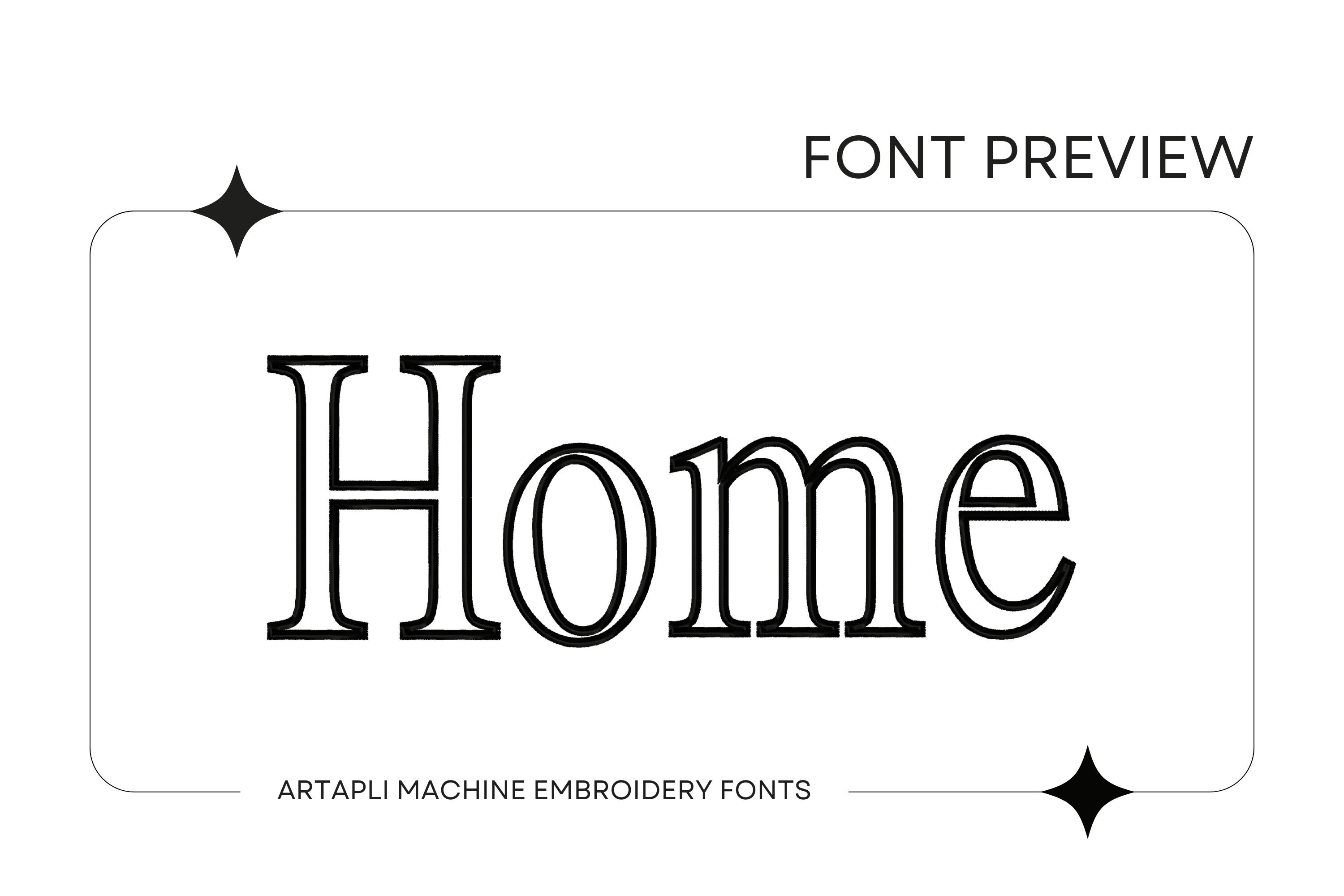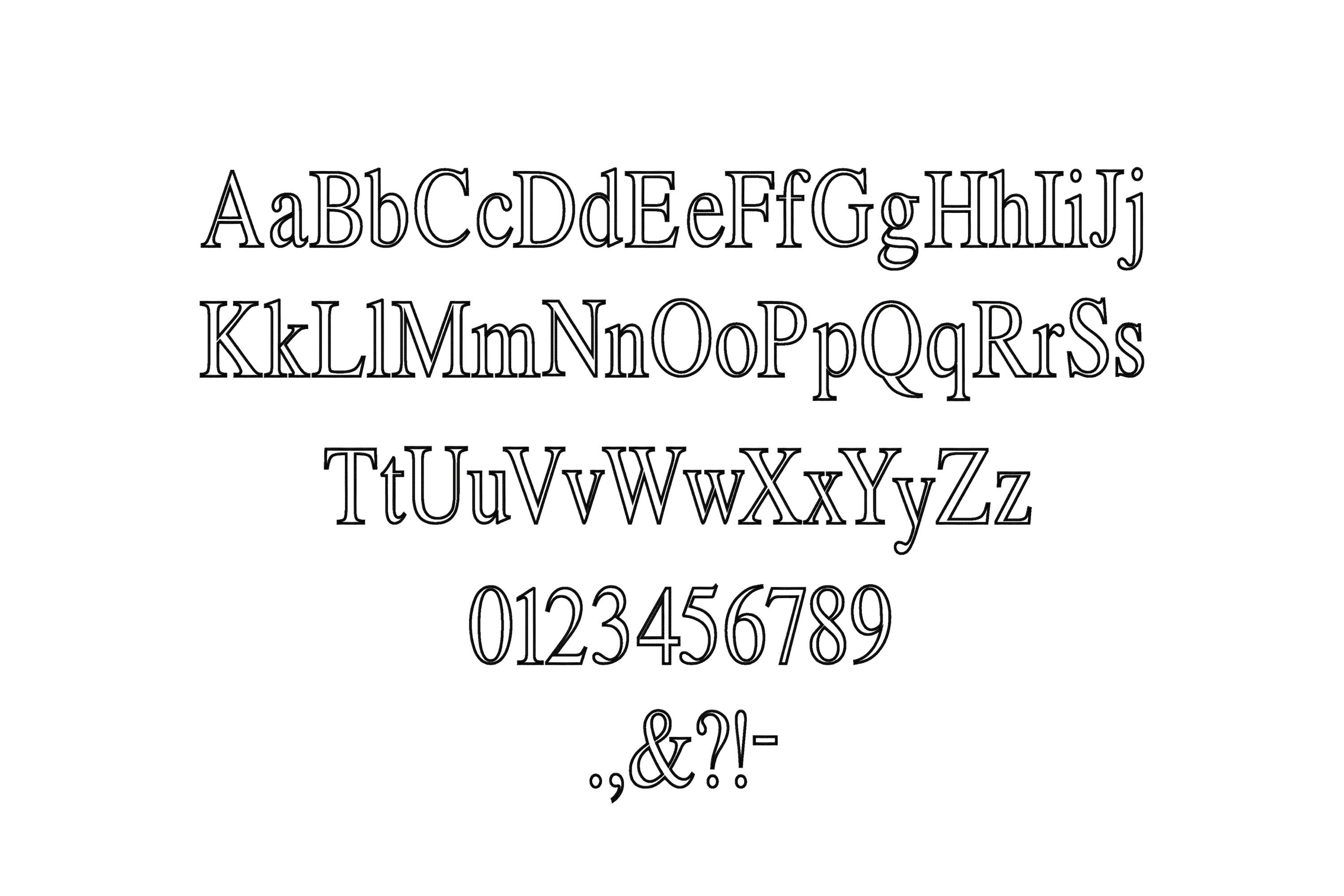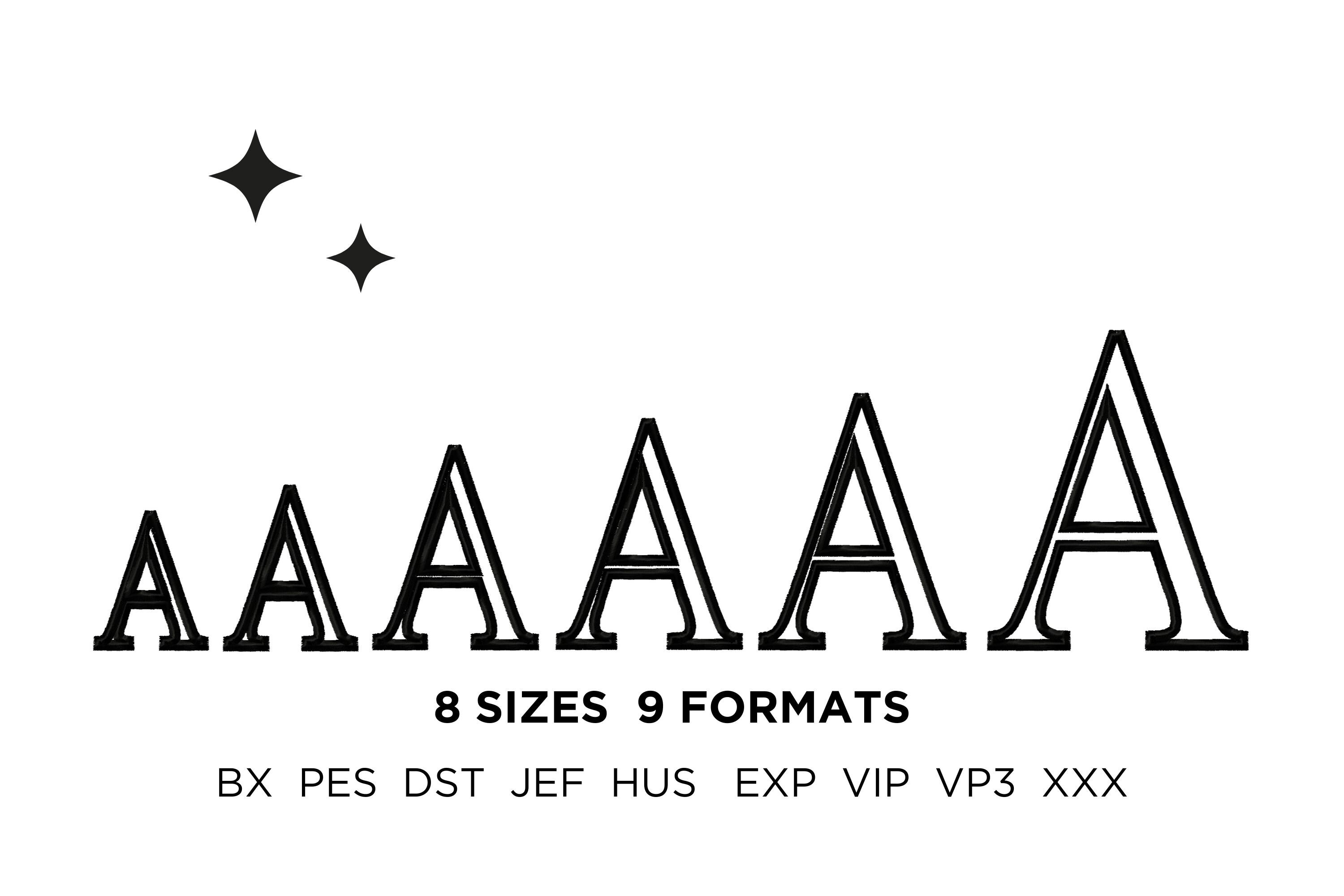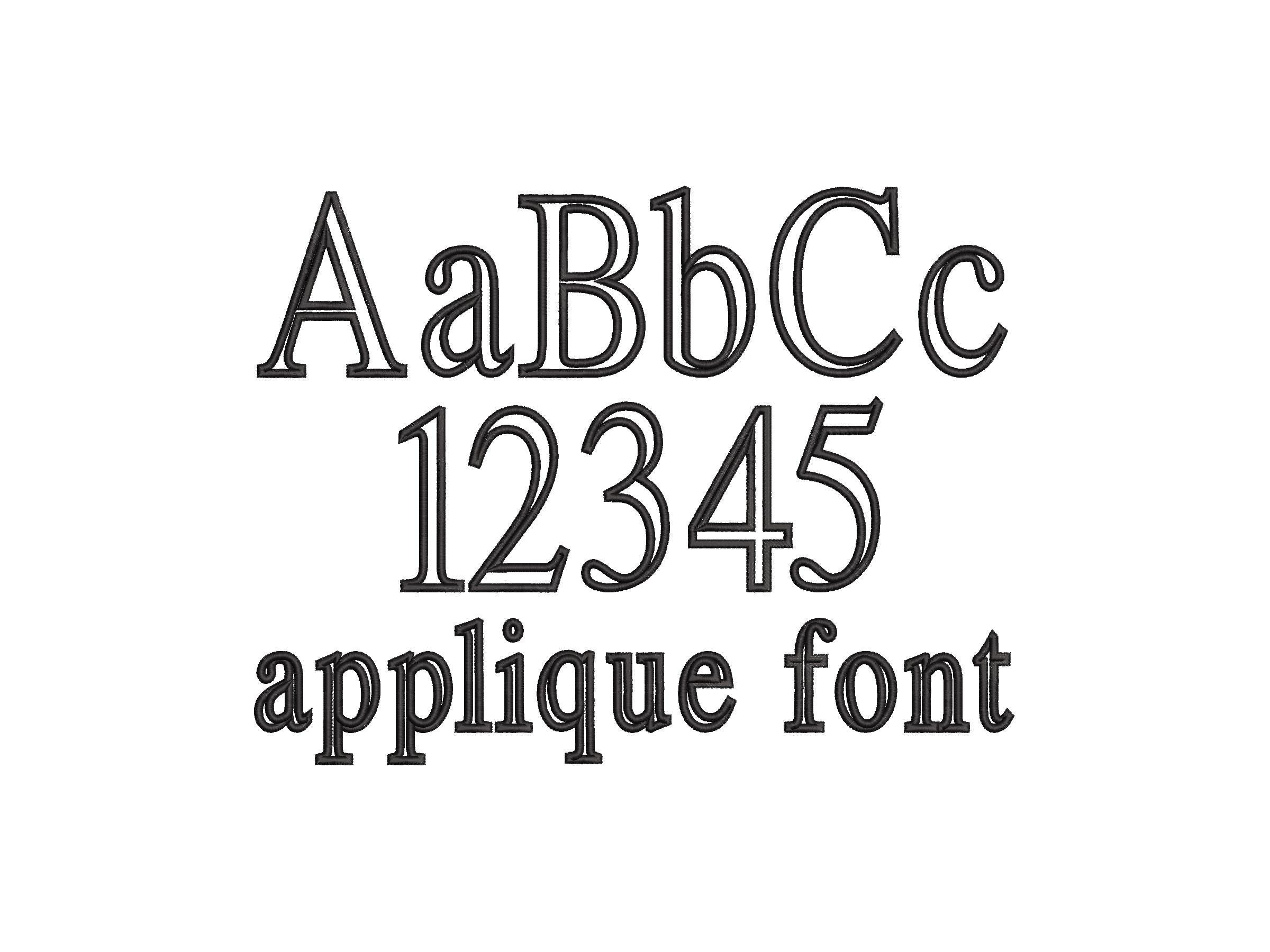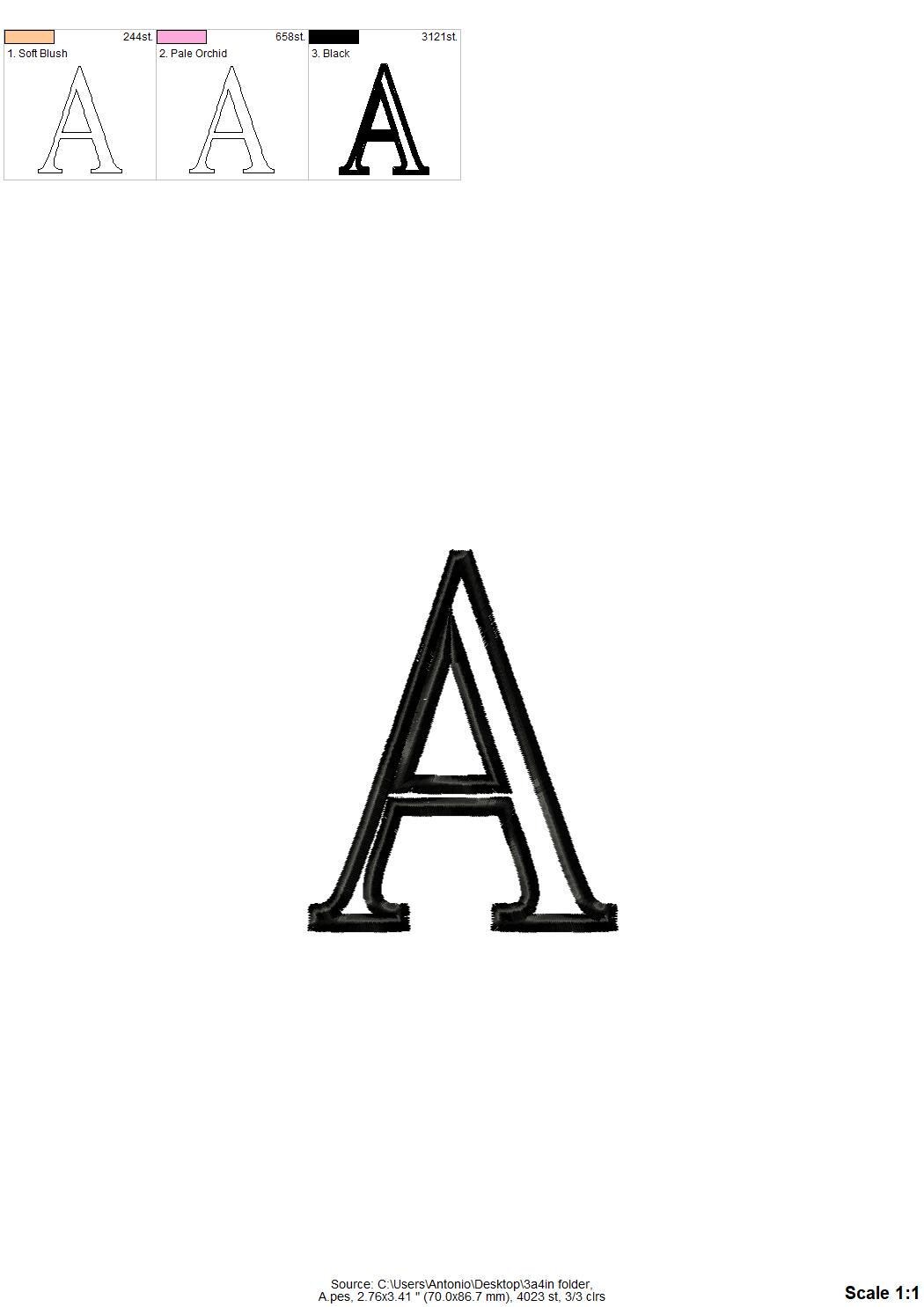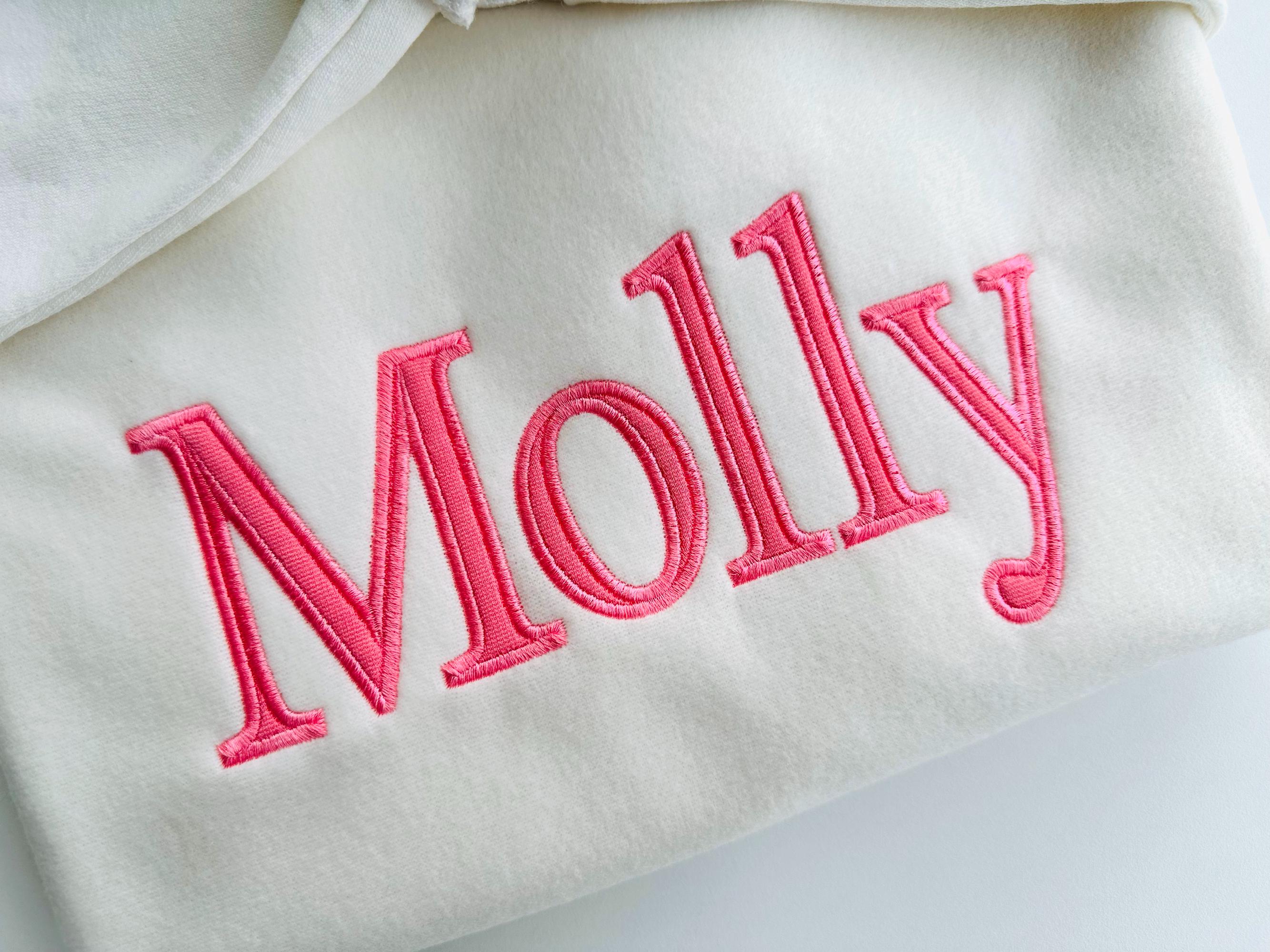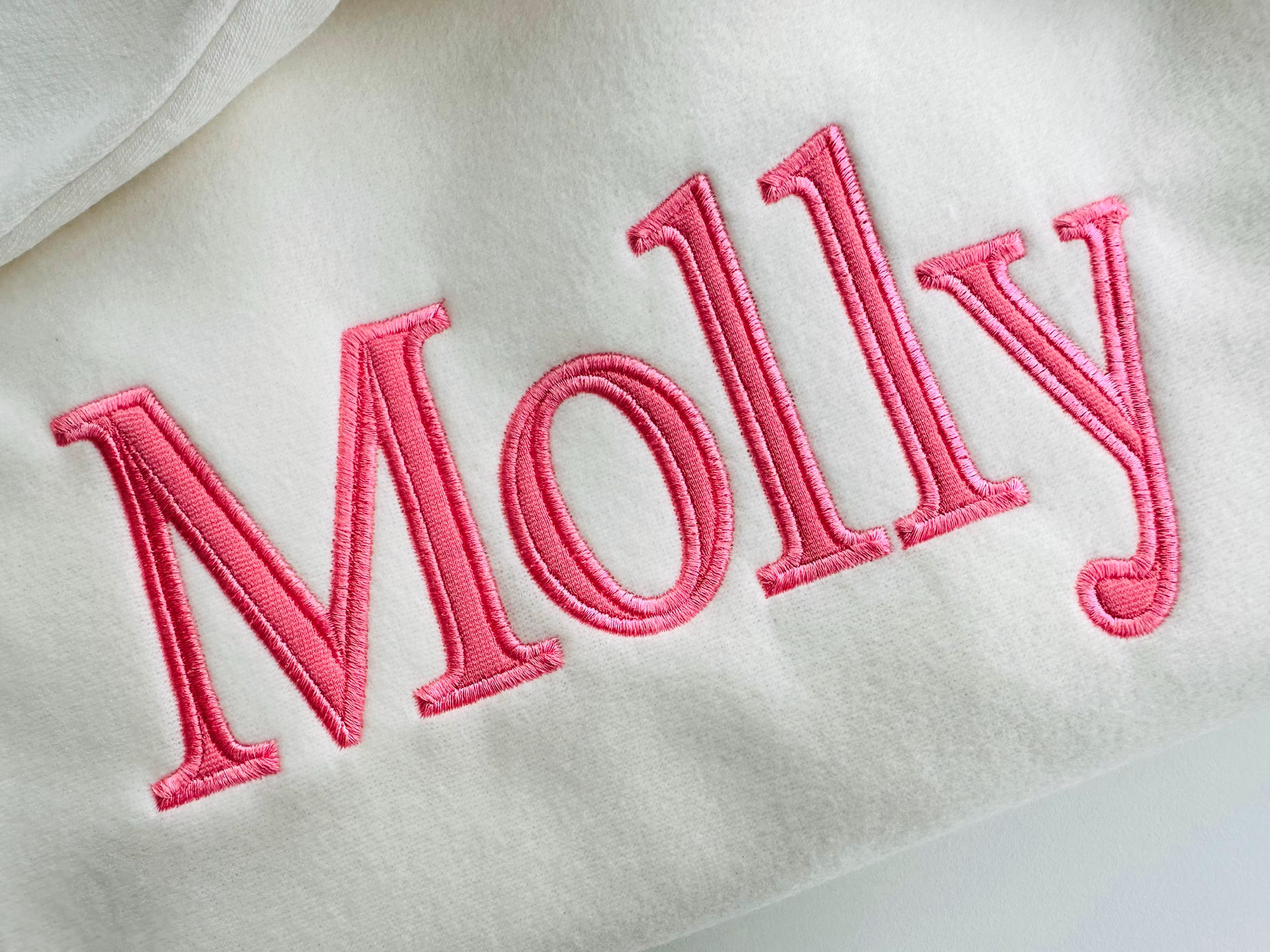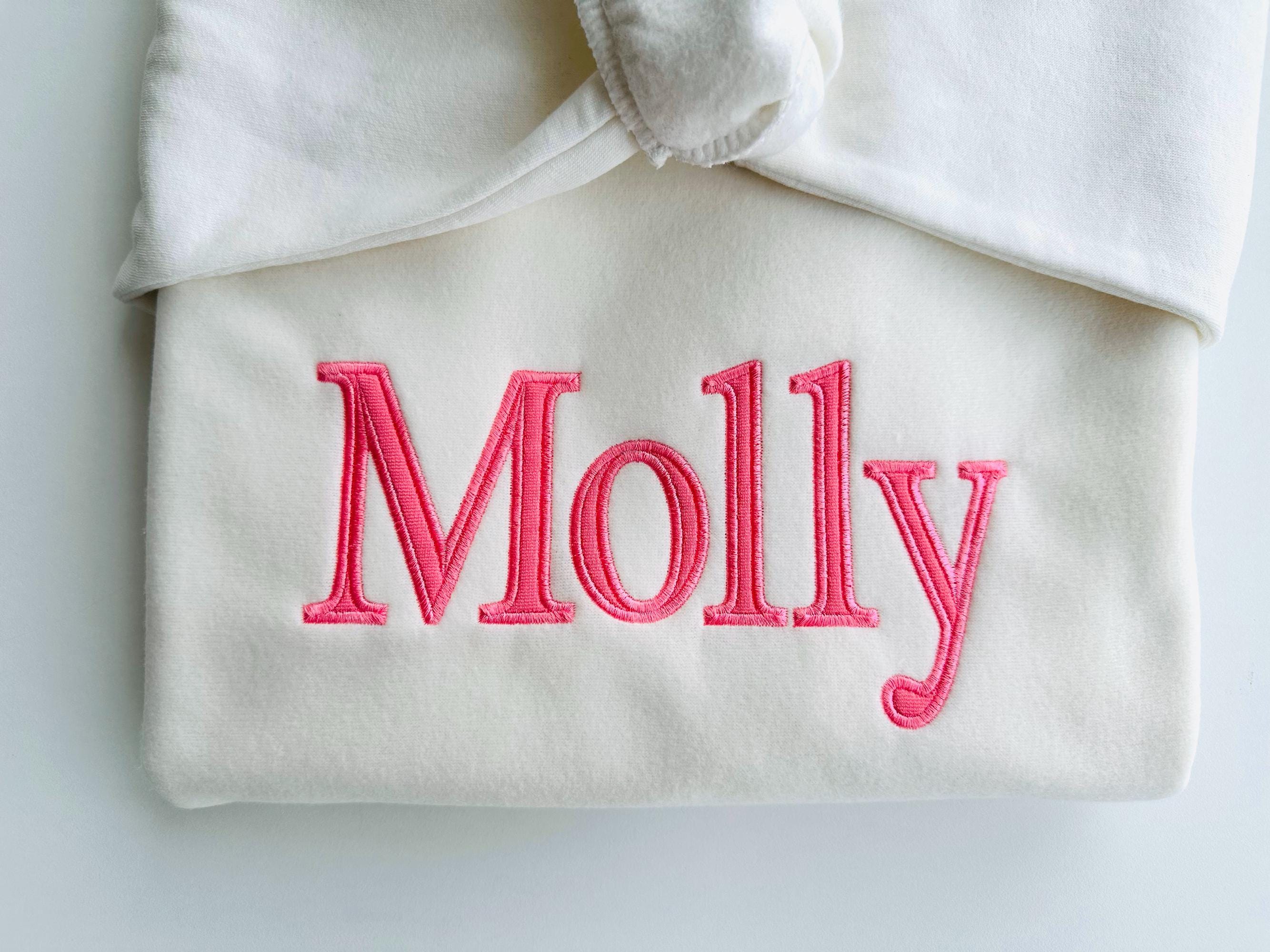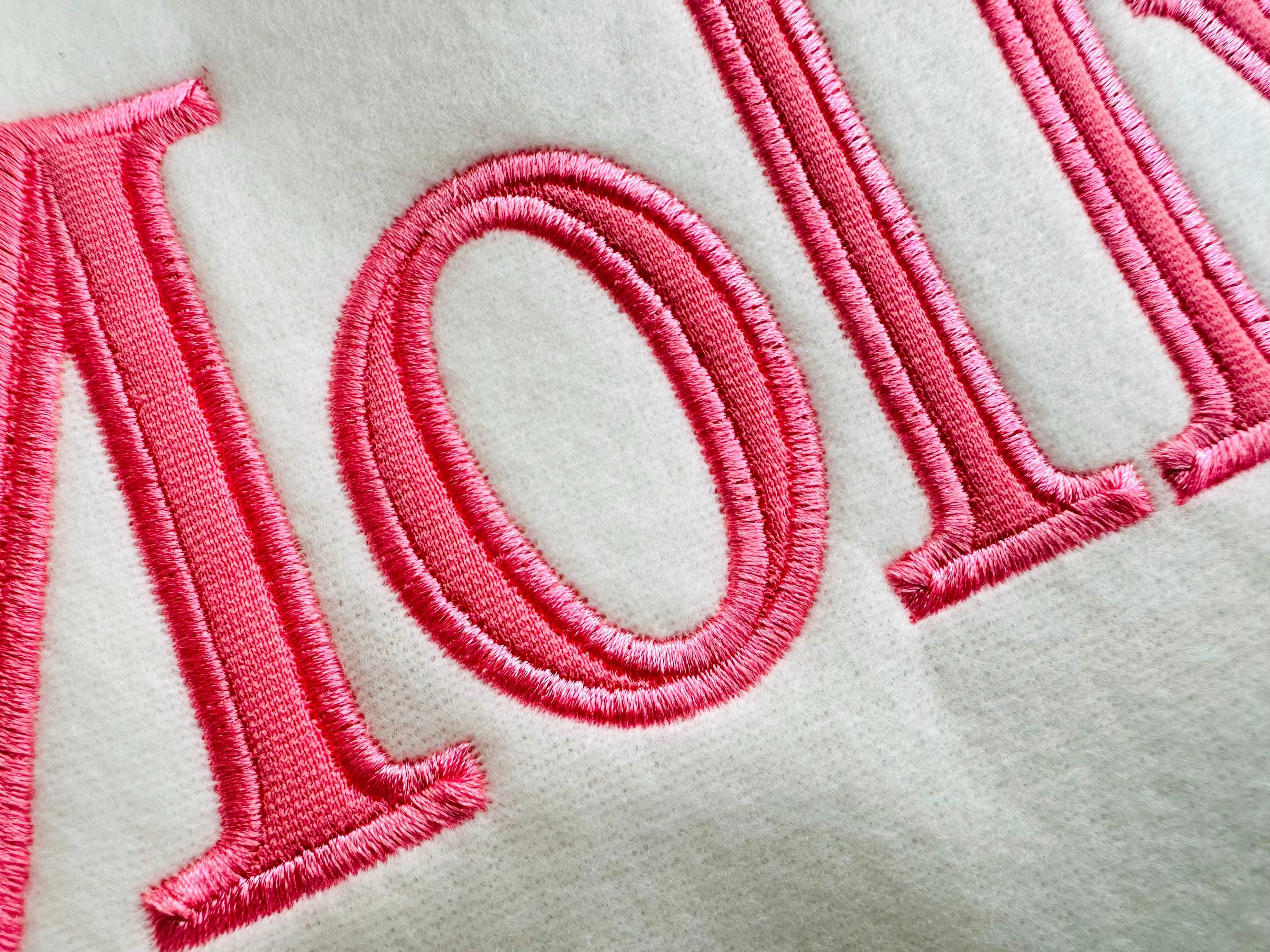
Monogram Applique Font bold alphabet new Roman style machine embroidery designs letters and numbers many sizes 2 up to 4.7 inches, BX
Applique design
Uppercase and lowercase letters, numbers and punctuation.